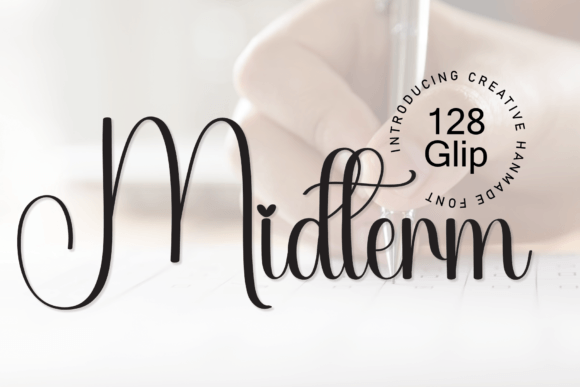
Dive into the world of Midterm Font, a captivating script font family crafted by the renowned Roronoa zoro.S.P.D. Experience the delicate charm and elegant flow of this font, meticulously designed to evoke a sense of sophistication and beauty in your designs.
With its graceful curves and balanced characters, Midterm Font seamlessly complements a diverse range of creative projects. Whether you're crafting eye-catching logos, stunning wedding invitations, or personalized branding elements, this font will elevate your designs with a touch of elegance and timeless appeal.
Step into the realm of boundless creativity with Midterm Font. Its versatility knows no bounds, making it the perfect choice for a multitude of applications. Unleash your imagination and explore the possibilities of creating captivating social media posts, mesmerizing posters, and enchanting product packaging. Midterm Font will effortlessly transform your words into captivating works of art, leaving a lasting impression on your audience.
Embrace the allure of Midterm Font, a font family that speaks to the heart. Its enchanting script style evokes a sense of intimacy and warmth, making it ideal for creating heartfelt messages, heartfelt letters, and personalized gifts. Allow your words to flow with grace and emotion as you craft heartfelt expressions that touch the soul.
But Midterm Font is more than just a beautiful font; it's a gateway to unlocking your creative potential. Its intuitive design and effortless flow make it a joy to use, allowing you to effortlessly transform your ideas into stunning visual masterpieces.
Don't miss this opportunity to add Midterm Font to your creative arsenal. Its versatility, charm, and emotional appeal make it an indispensable tool for designers, crafters, and anyone seeking to add a touch of elegance and sophistication to their projects. Embark on your creative journey today and witness the magic that unfolds as Midterm Font brings your designs to life.